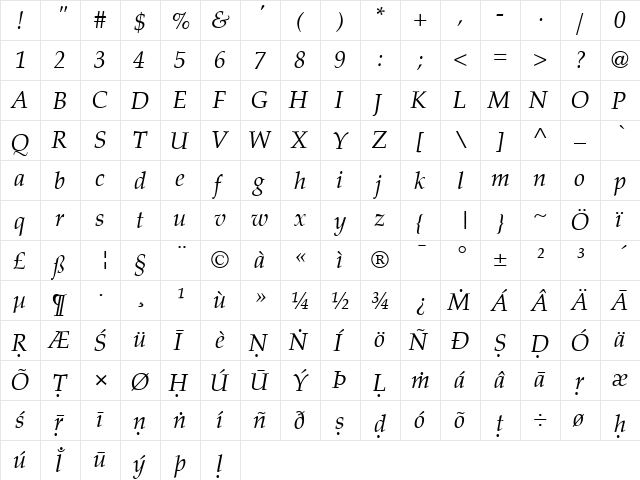
ScaPalatino Italic
Design Context for ScaPalatino Typeface
ScaPalatino offers clean, dependable letterforms without strong stylistic allegiance, making it a practical choice for designers who need flexibility. The dynamic lean of this cut emphasises speed and emphasis in any layout.
Pro Tip: Try ScaPalatino for annotation and caption copy alongside an upright companion — the contrast in angle creates a dynamic but ordered typographic system.